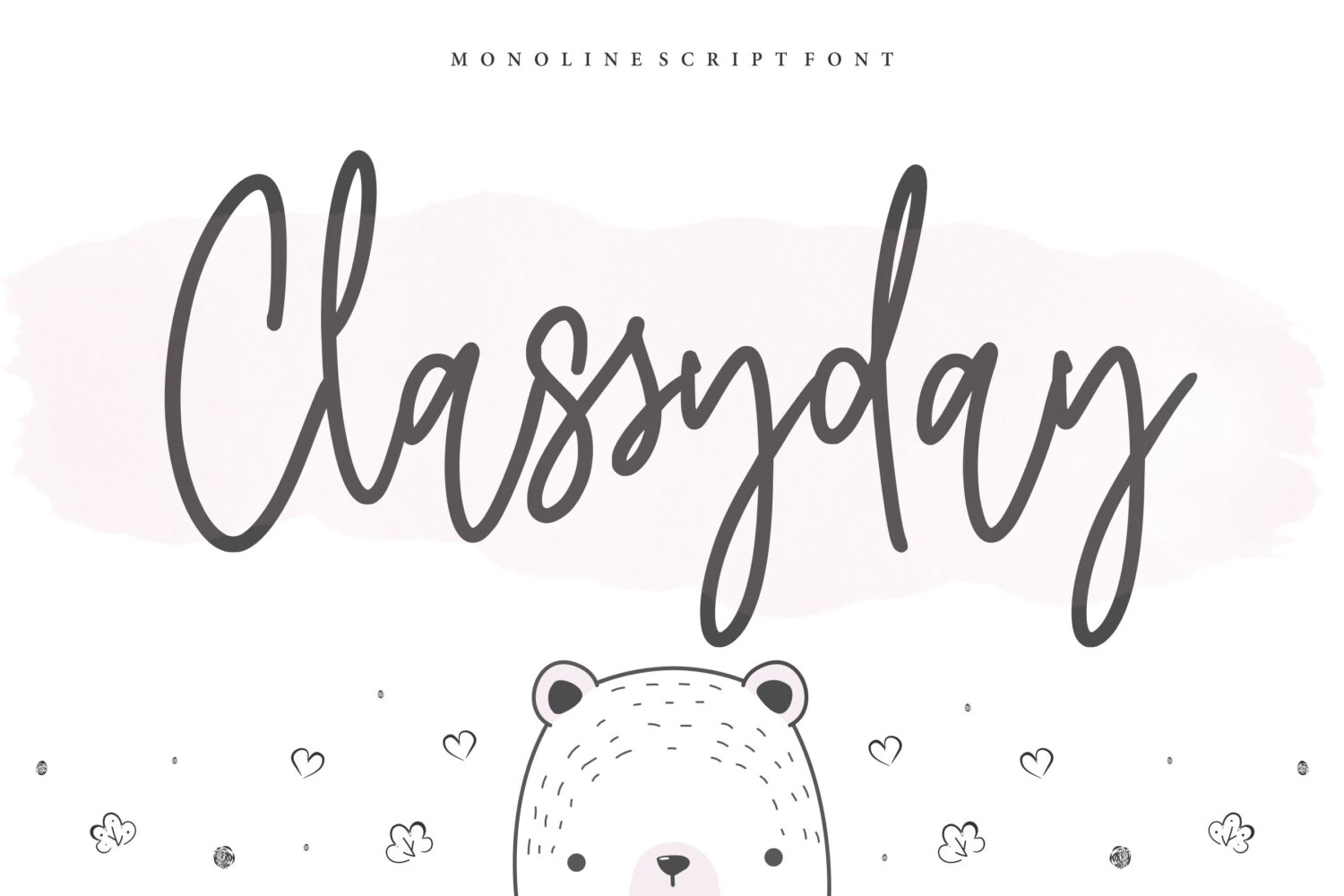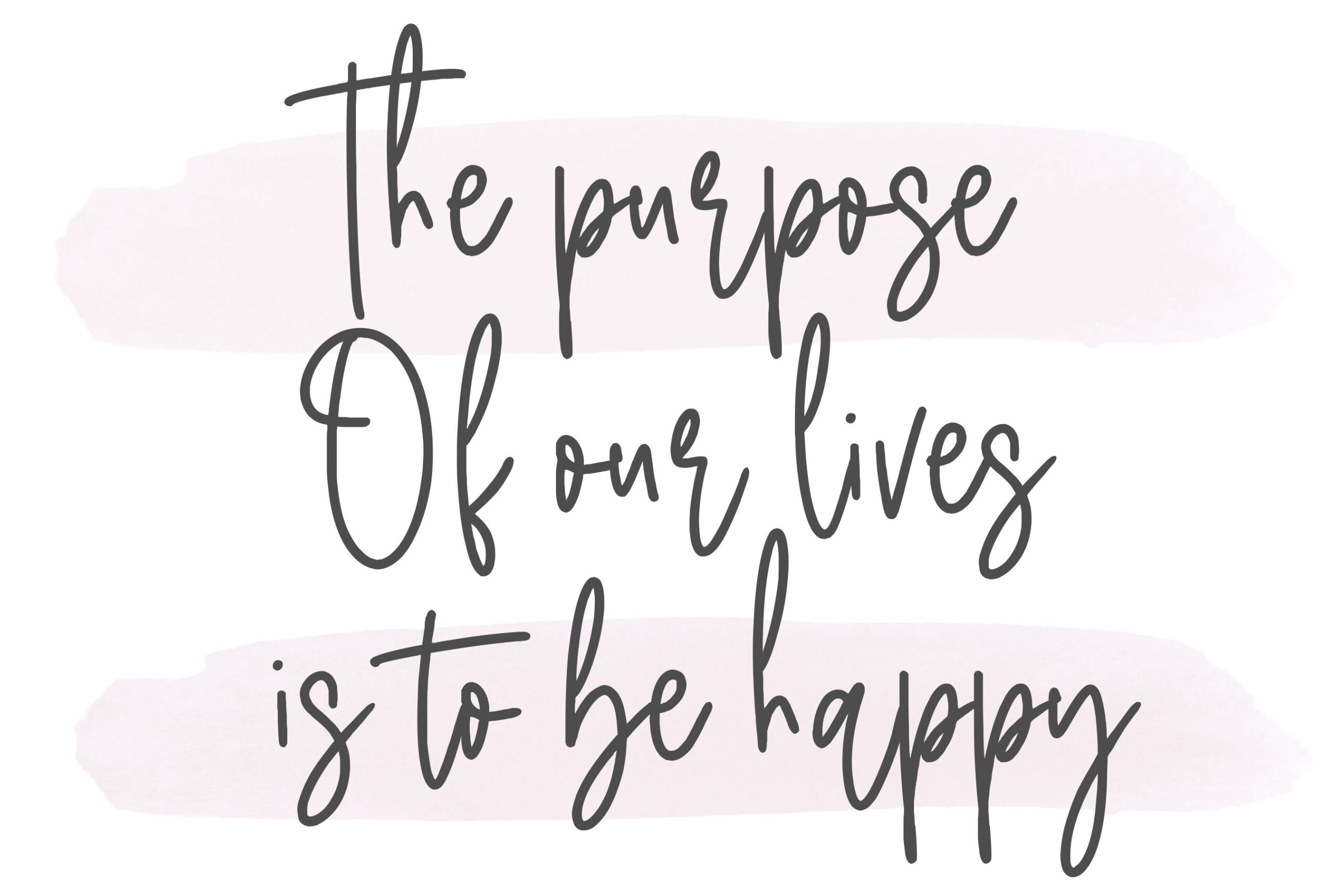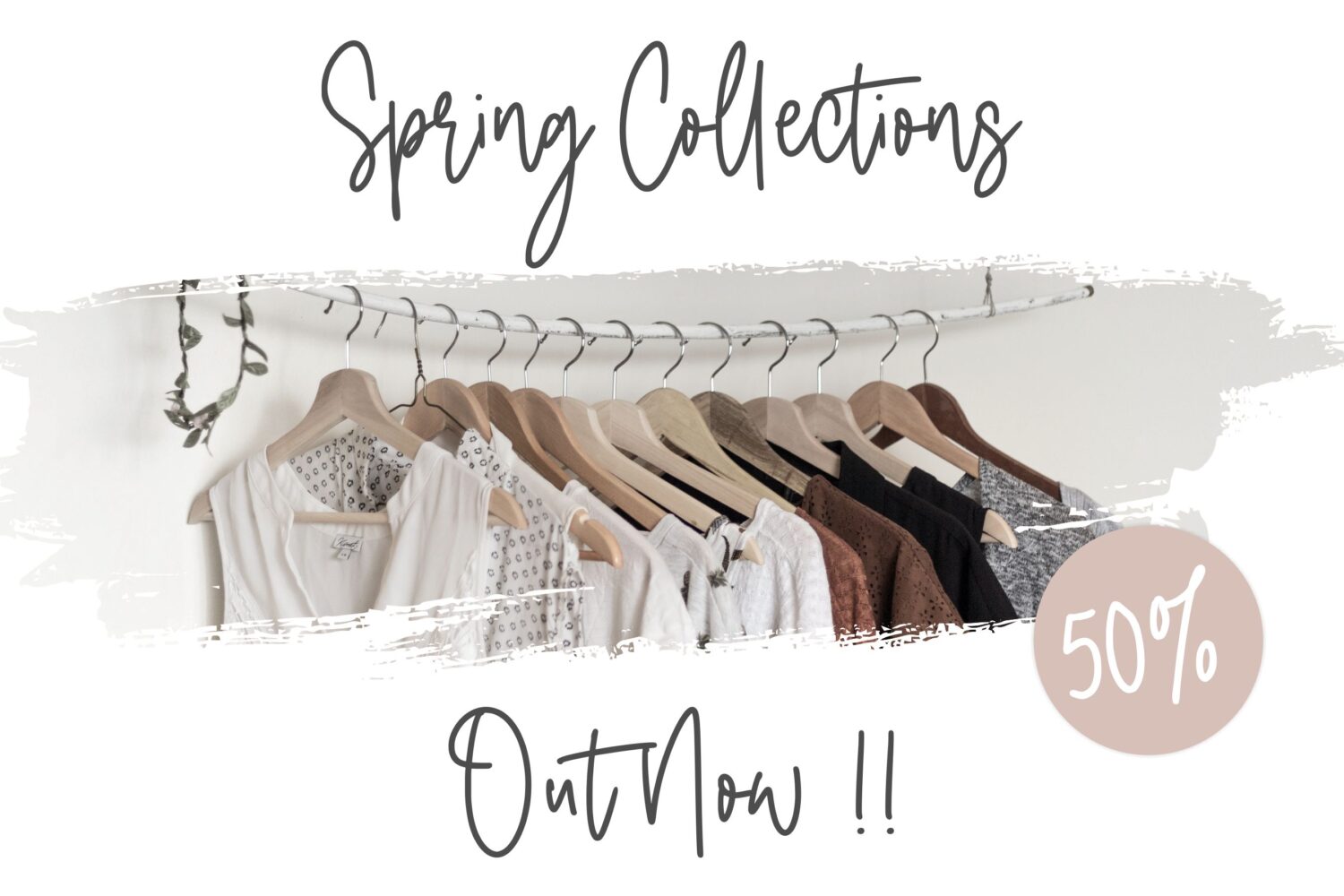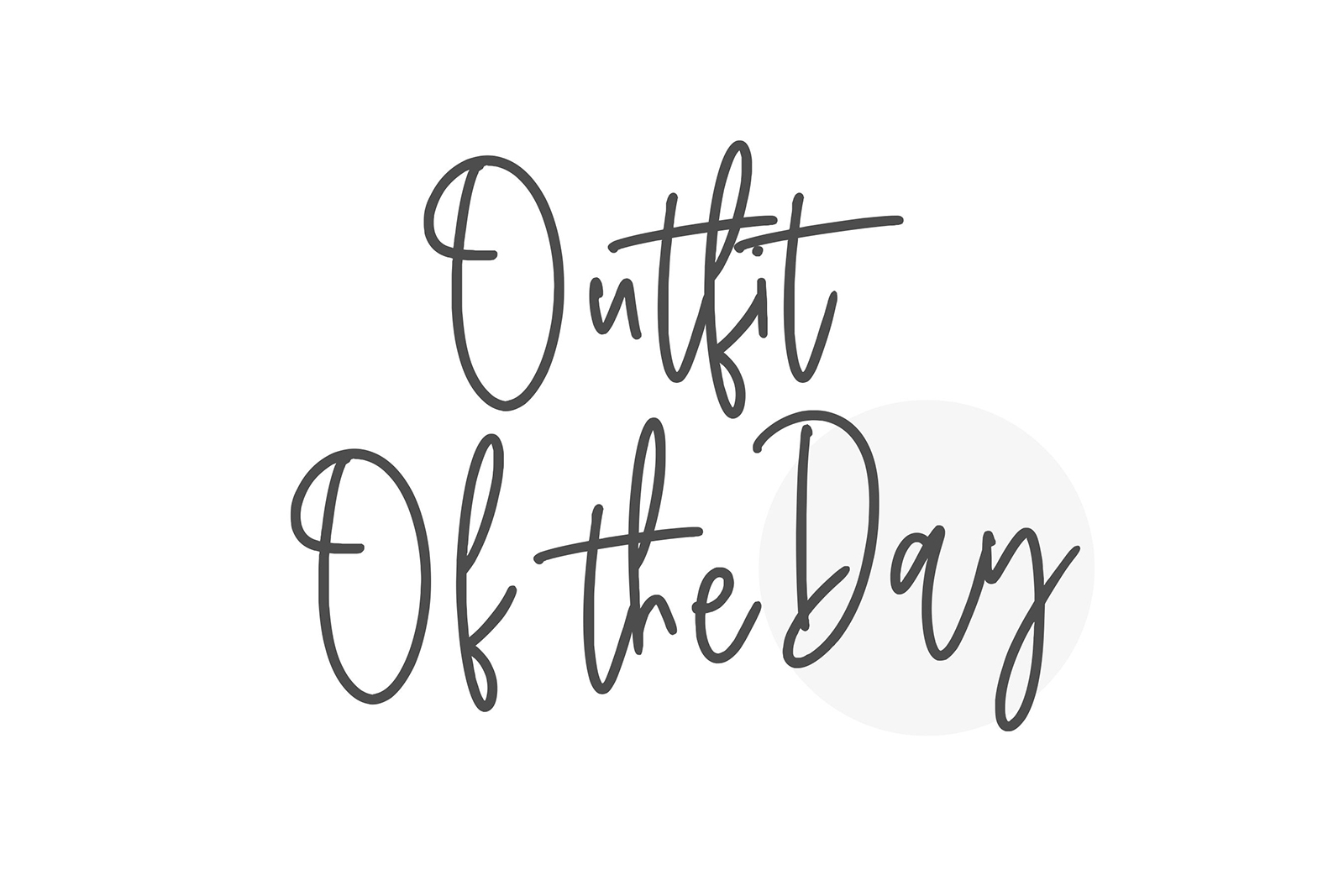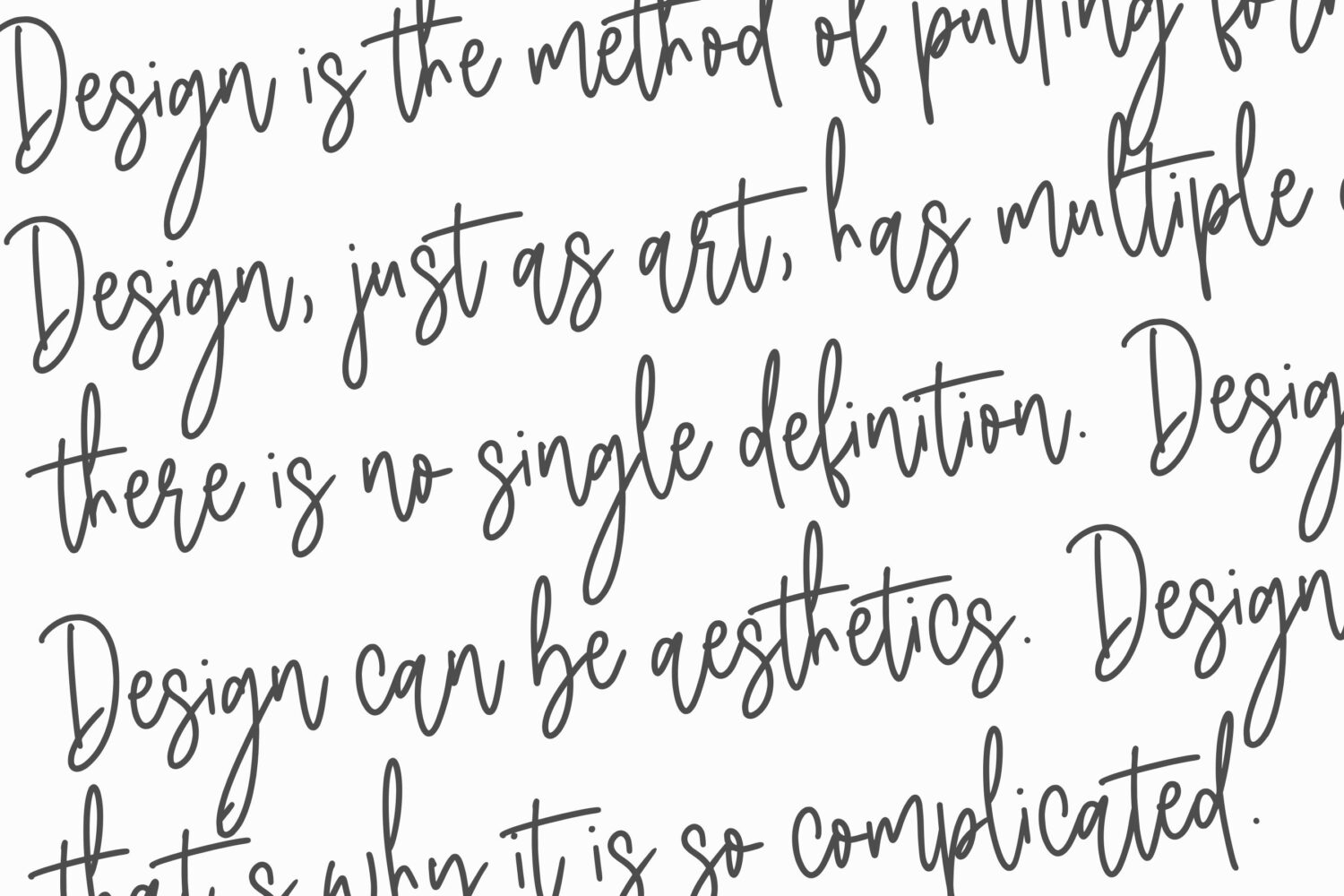
Classyday Monoline Script Free Font
Classyday Monoline Script Free Font is a monoline script font. Classyday Monoline Script Free Font is perfect for product packaging, branding project, magazine, social media, weddings, or just used to express words above the background. This free typeface was designed by a talented Balpirick Studio. If you like it don’t forget to check out the full version.